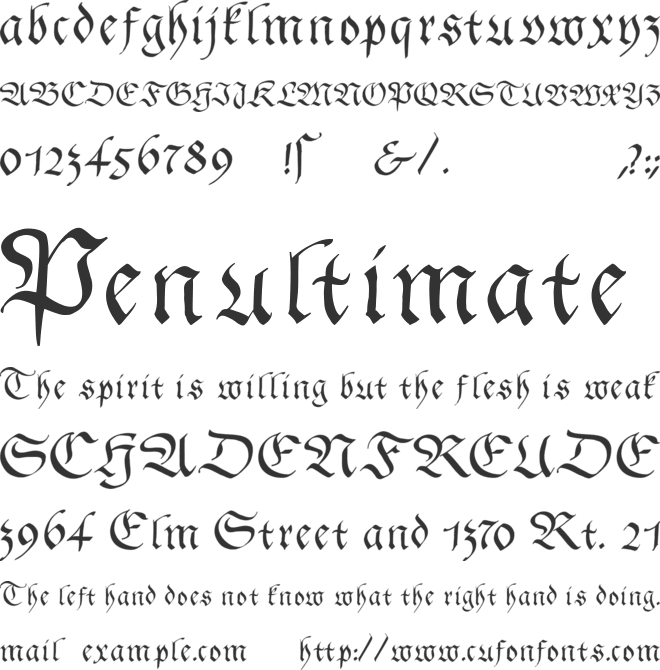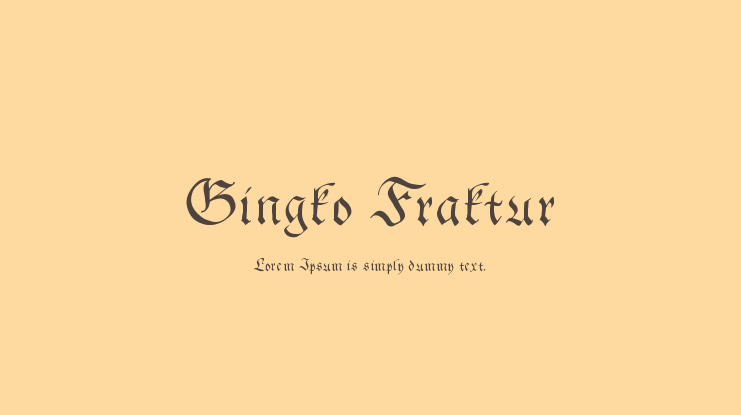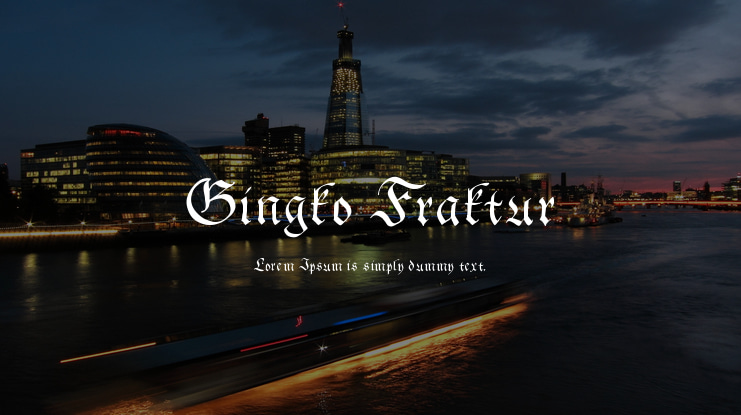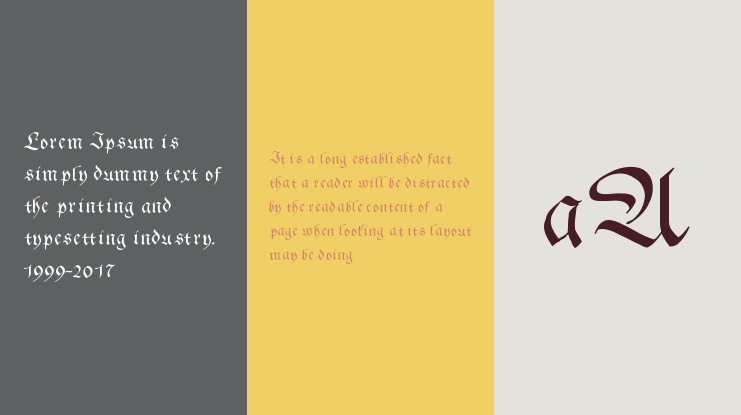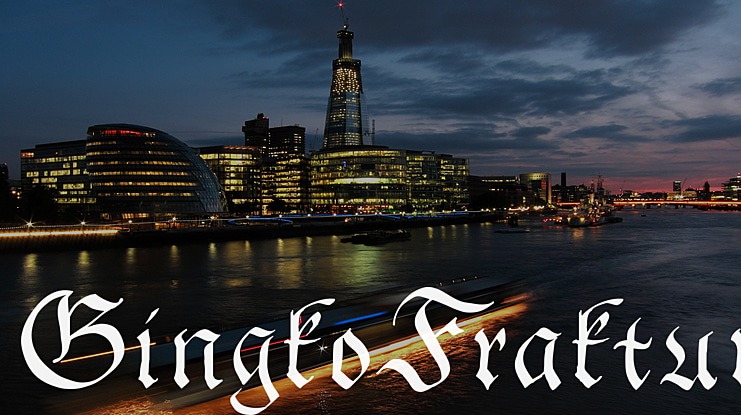
Gingko Fraktur Font
1-apr-2006 M. Klein The font is based on a ~1985 in Offenbach written calligraphic paper ... \(Just a written, modern Fraktur ...\)